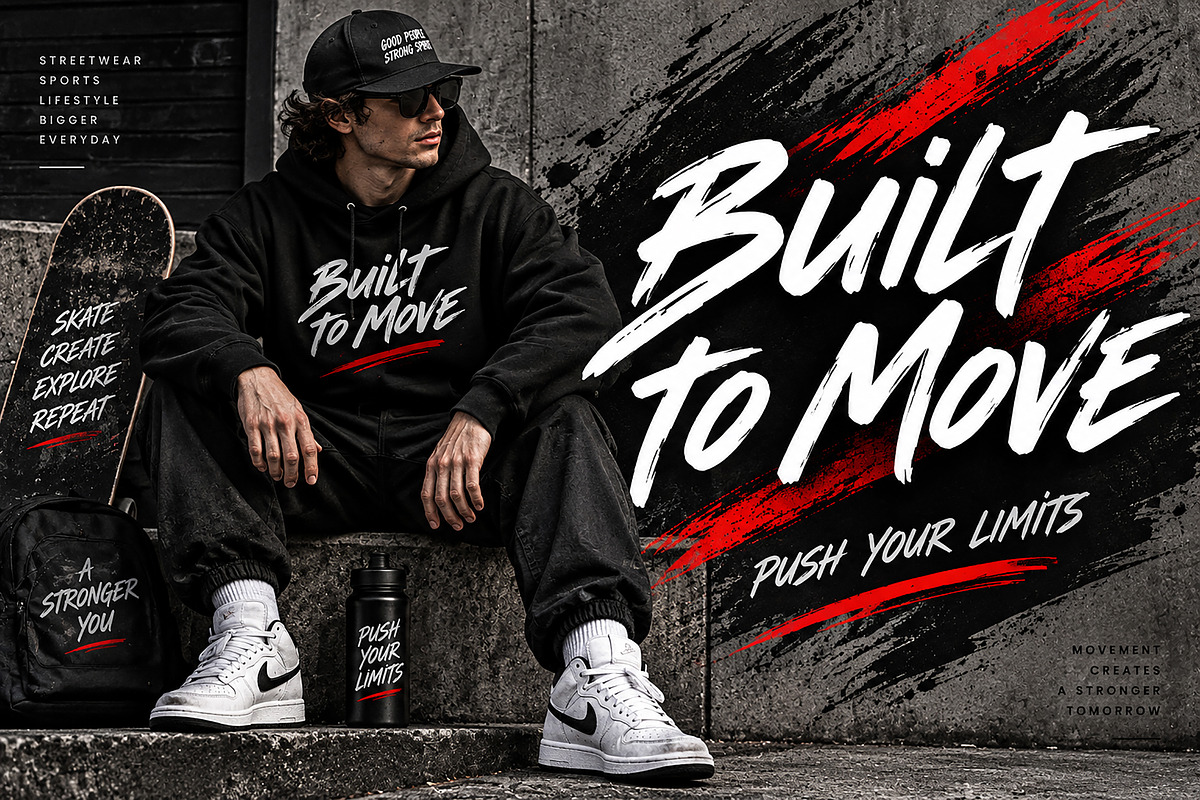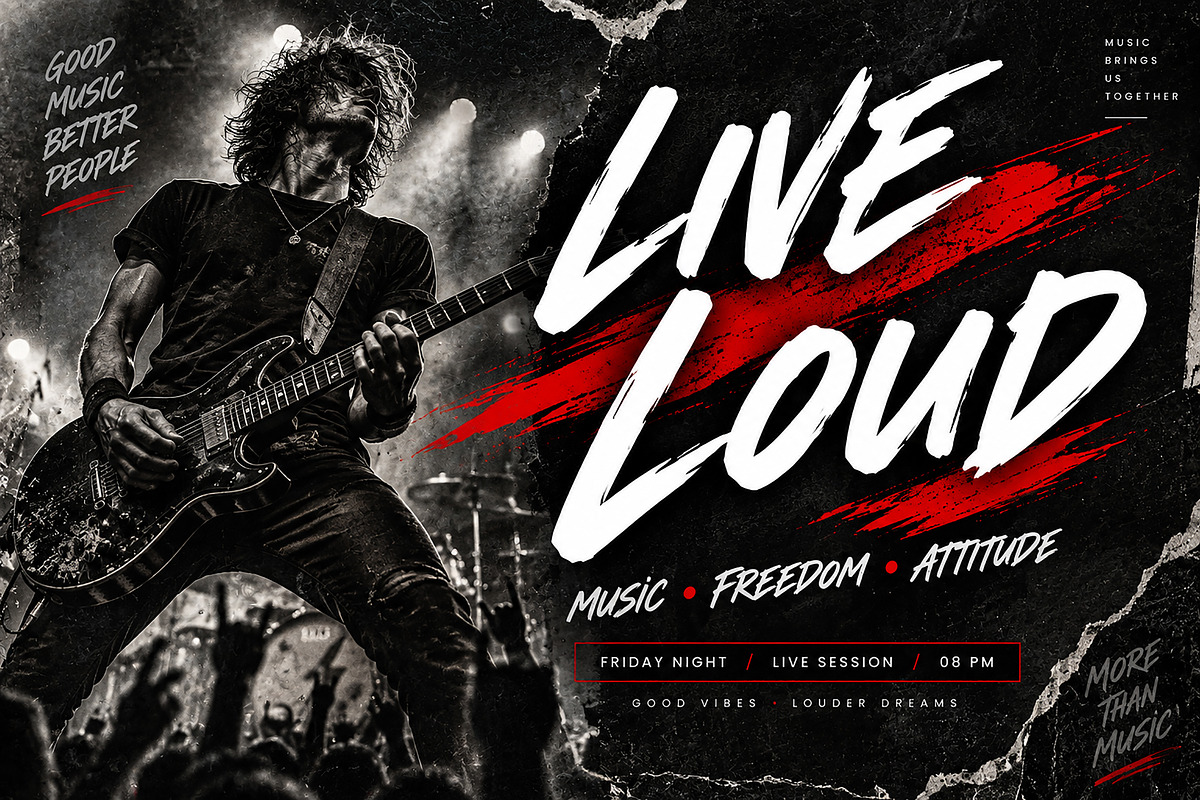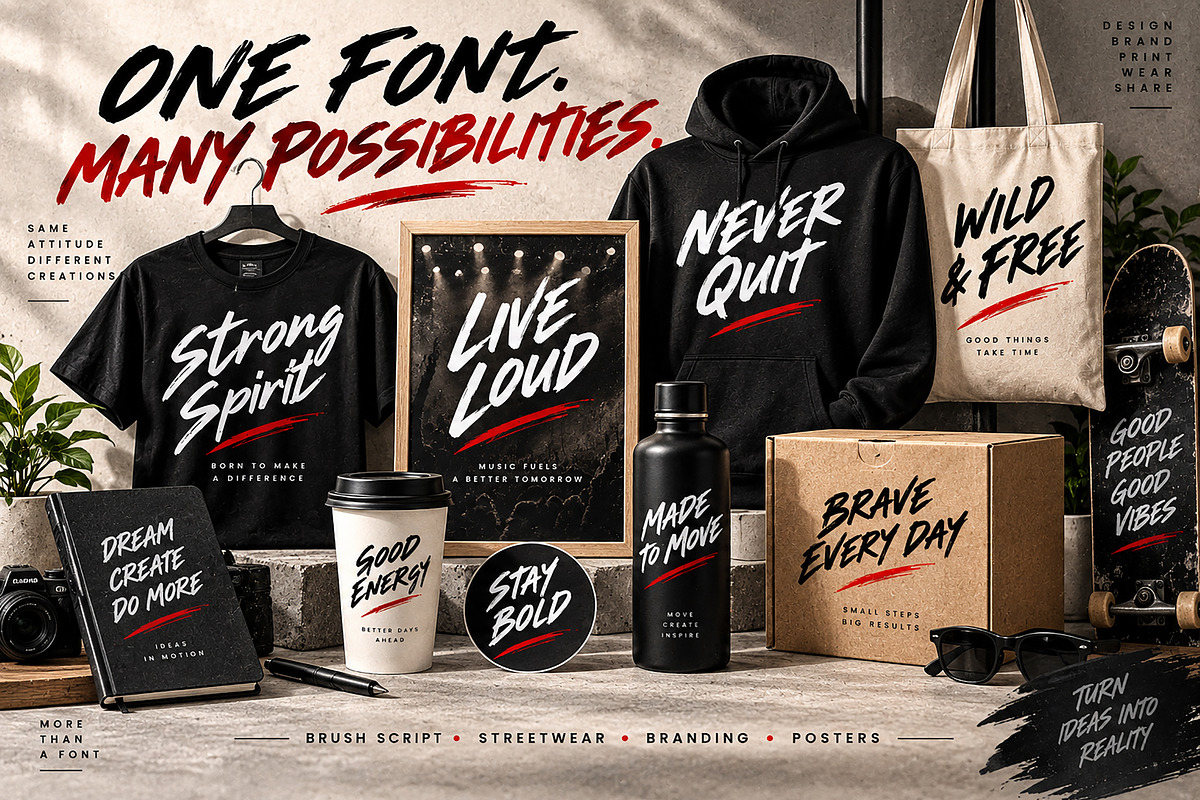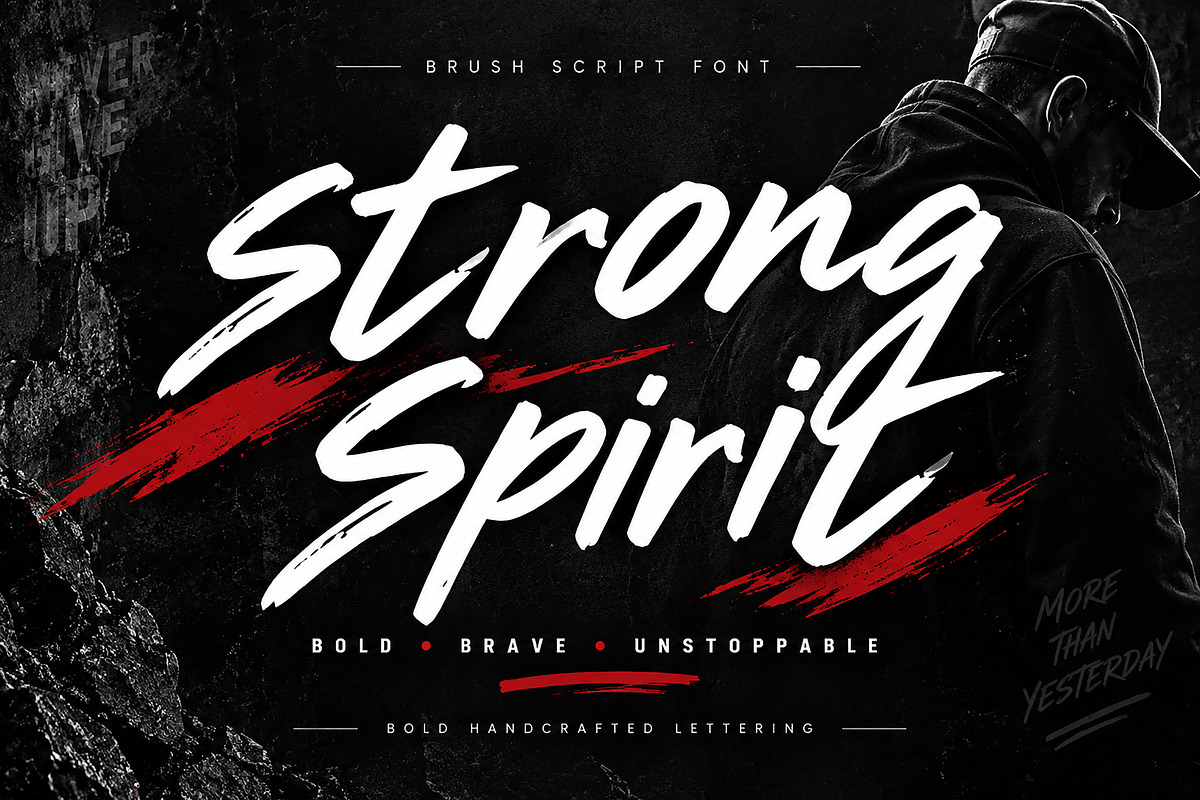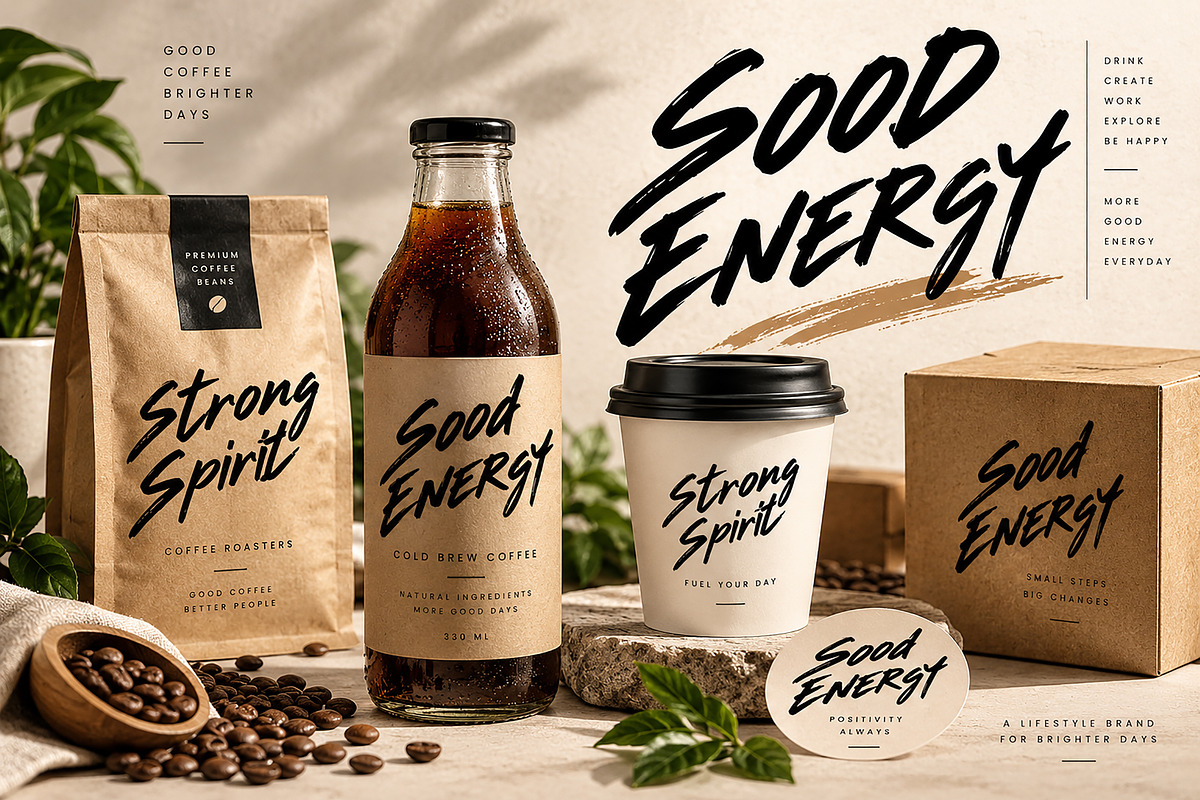
Strong Spirit
Strong Spirit is a bold and expressive brush script font designed to bring energy, movement, and a handcrafted personality to your creative projects. Its dynamic brush strokes, natural handwritten flow, and powerful visual character make it ideal for designs that need an energetic and authentic feel.
Perfect for streetwear graphics, sports branding, motivational designs, posters, music artwork, product packaging, logos, labels, merchandise, social media graphics, and lifestyle branding.
Whether you're creating a bold T-shirt design, an impactful poster, a coffee brand identity, or eye-catching packaging, Strong Spirit adds a confident hand-painted touch to your typography.
Streetwear & Apparel Designs
T-Shirts & Hoodies
Sports & Athletic Branding
Motivational Quotes
Posters & Flyers
Music & Album Artwork
Logo & Brand Identity
Coffee & Beverage Branding
Labels & Stickers
Tote Bags & Merchandise
Creative Advertising
Lifestyle Branding
Font Name: Strong Spirit
Style: Bold Brush Script / Handwritten Display
Strong Spirit is made for designers who want bold lettering with a raw, energetic, handcrafted appearance.